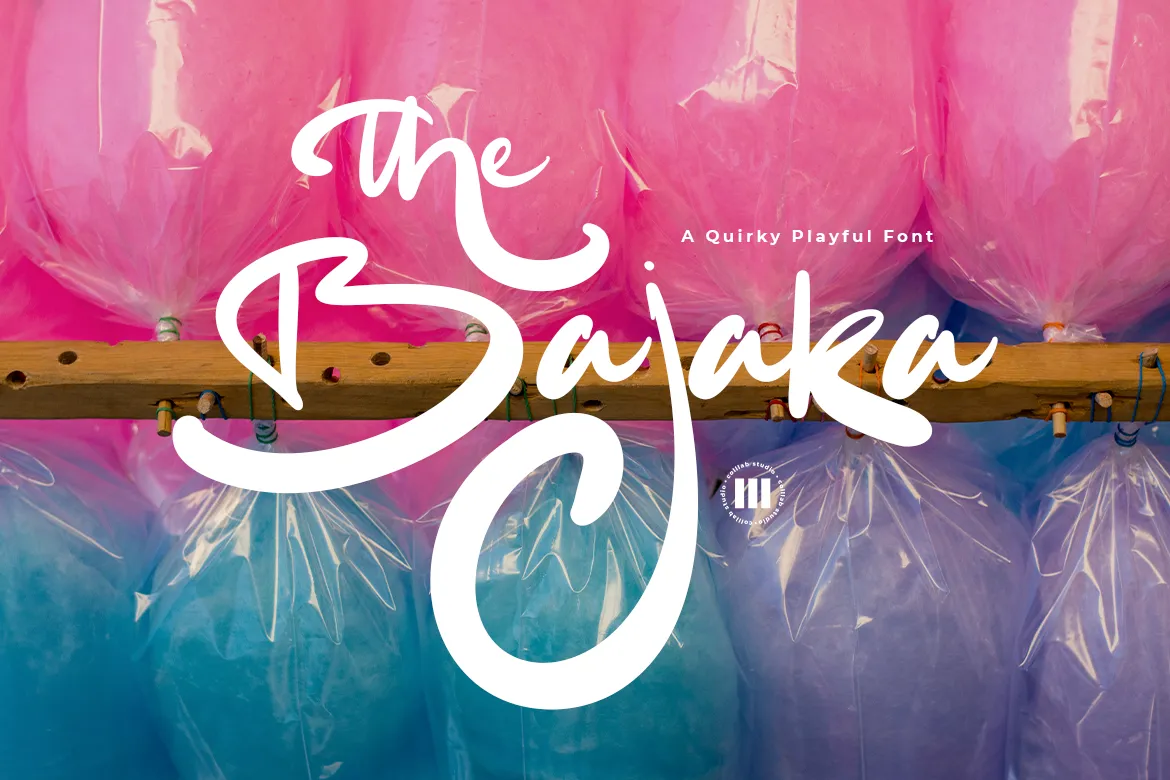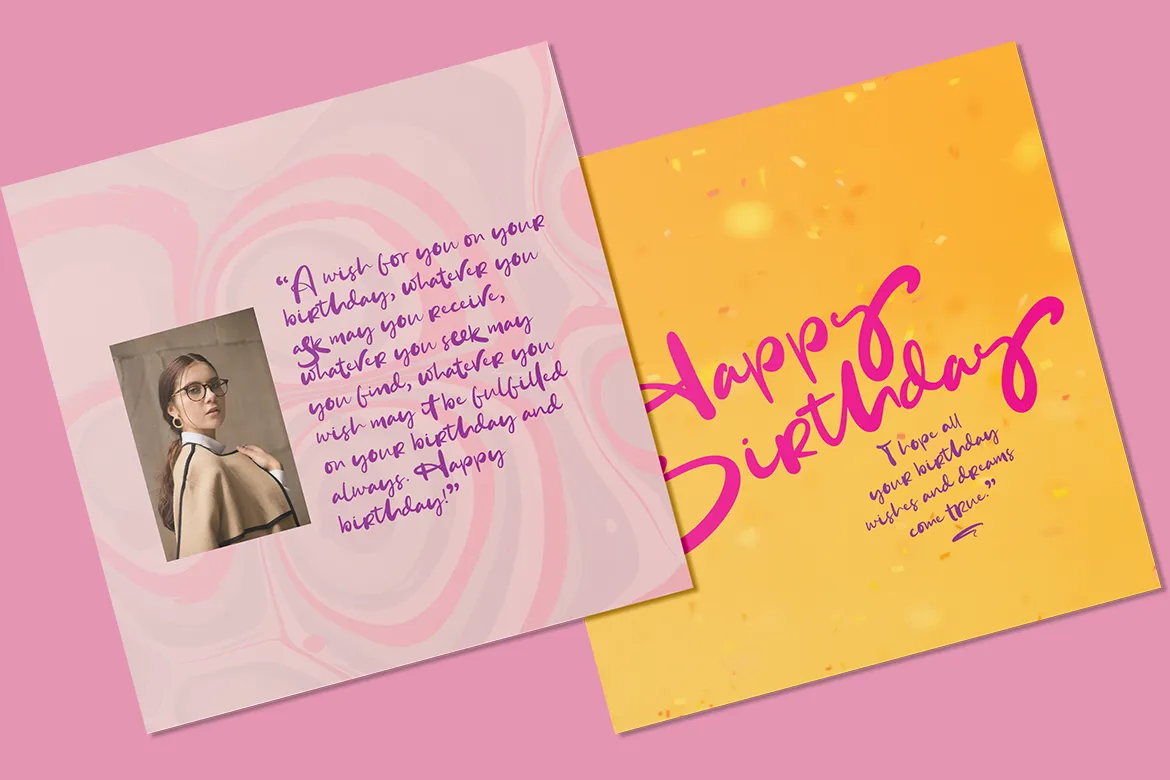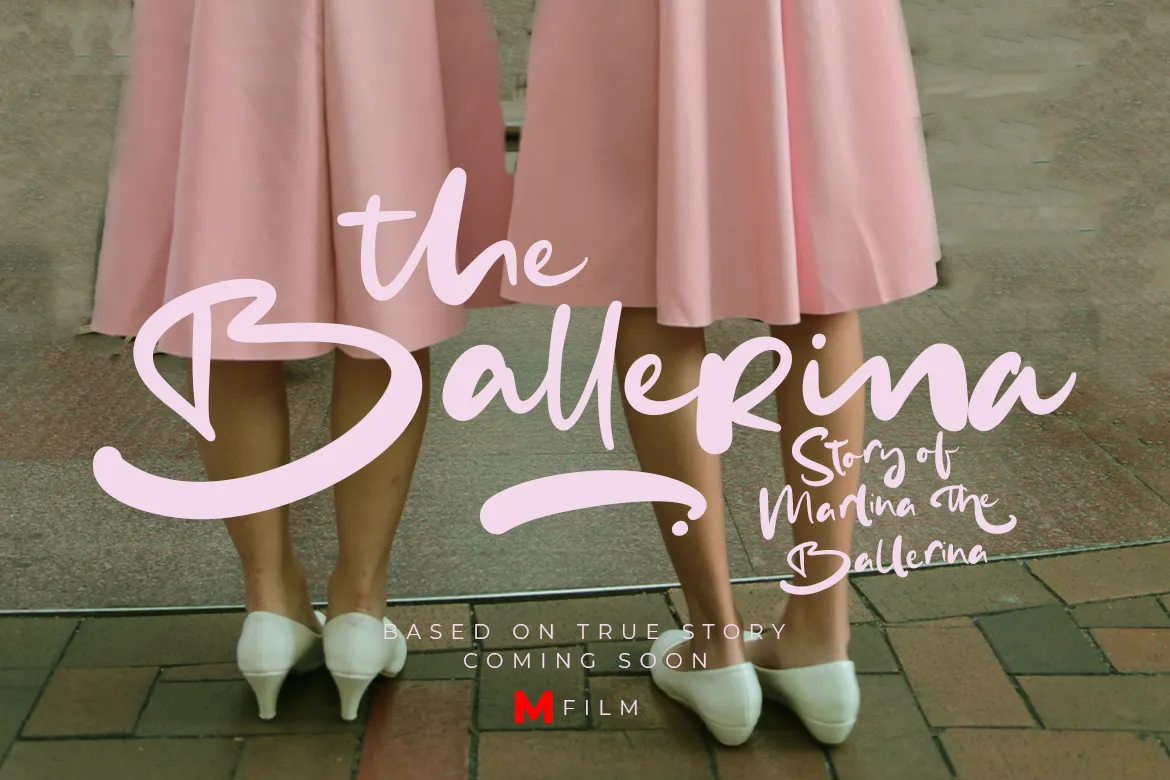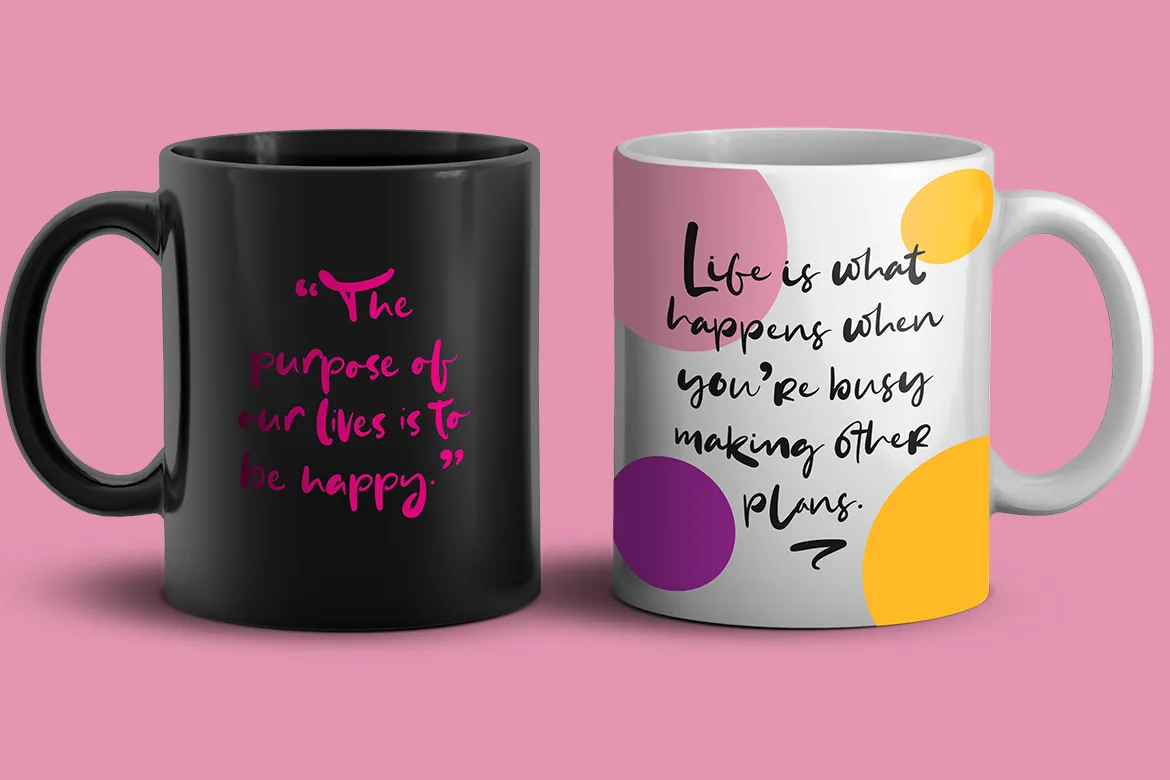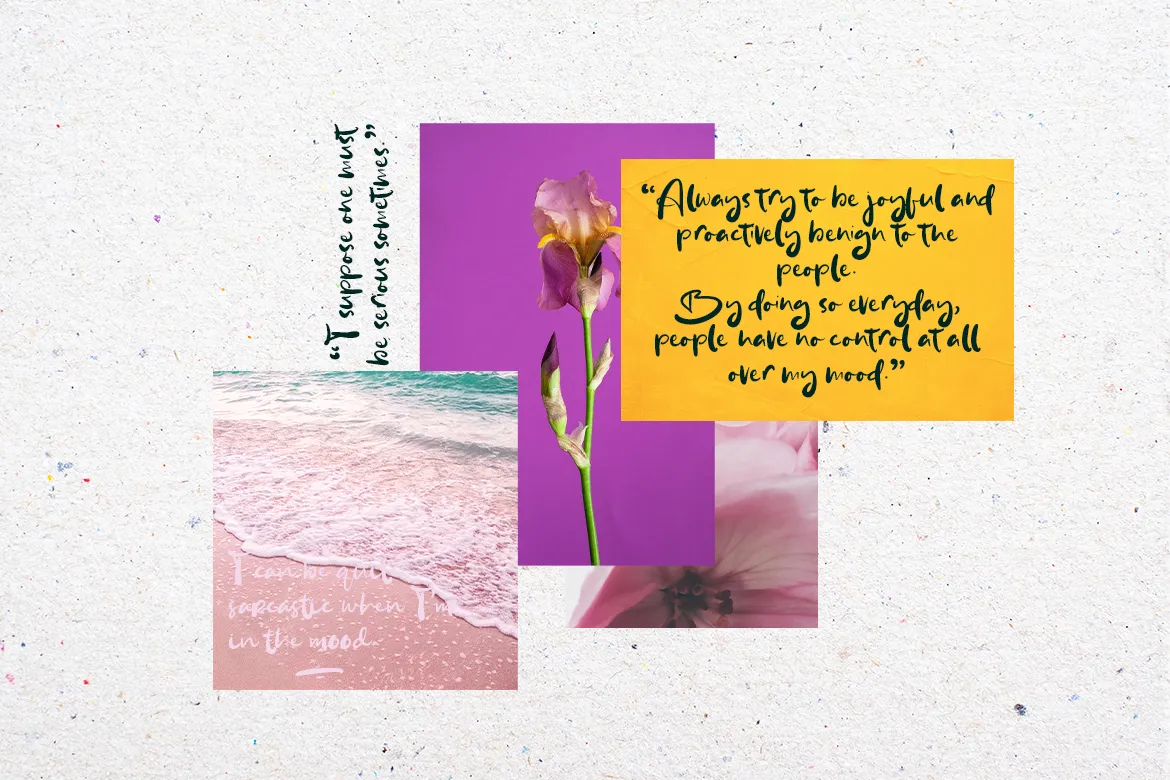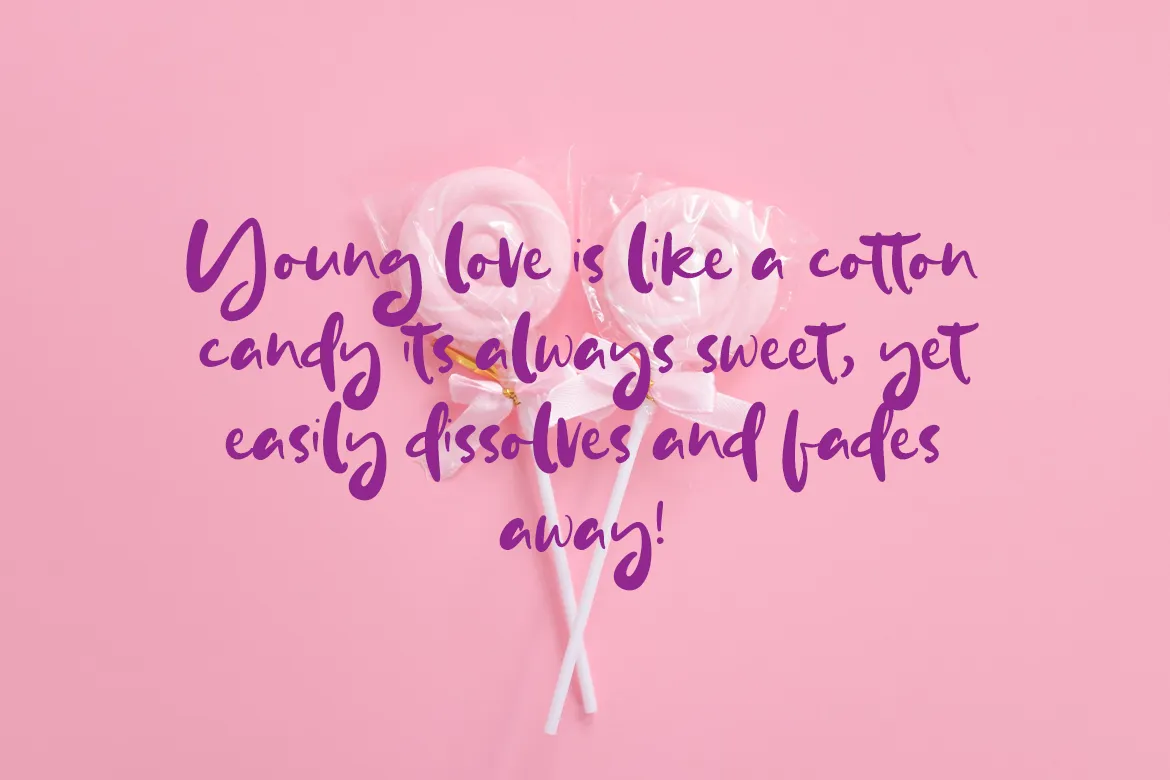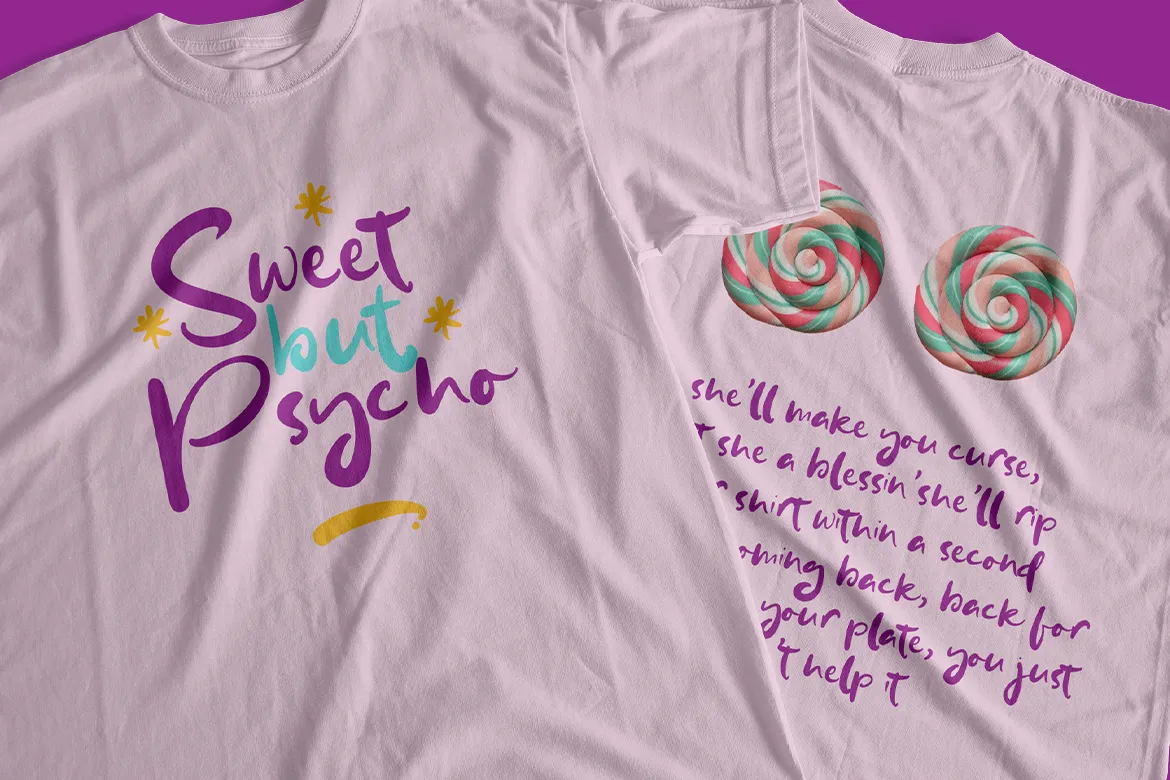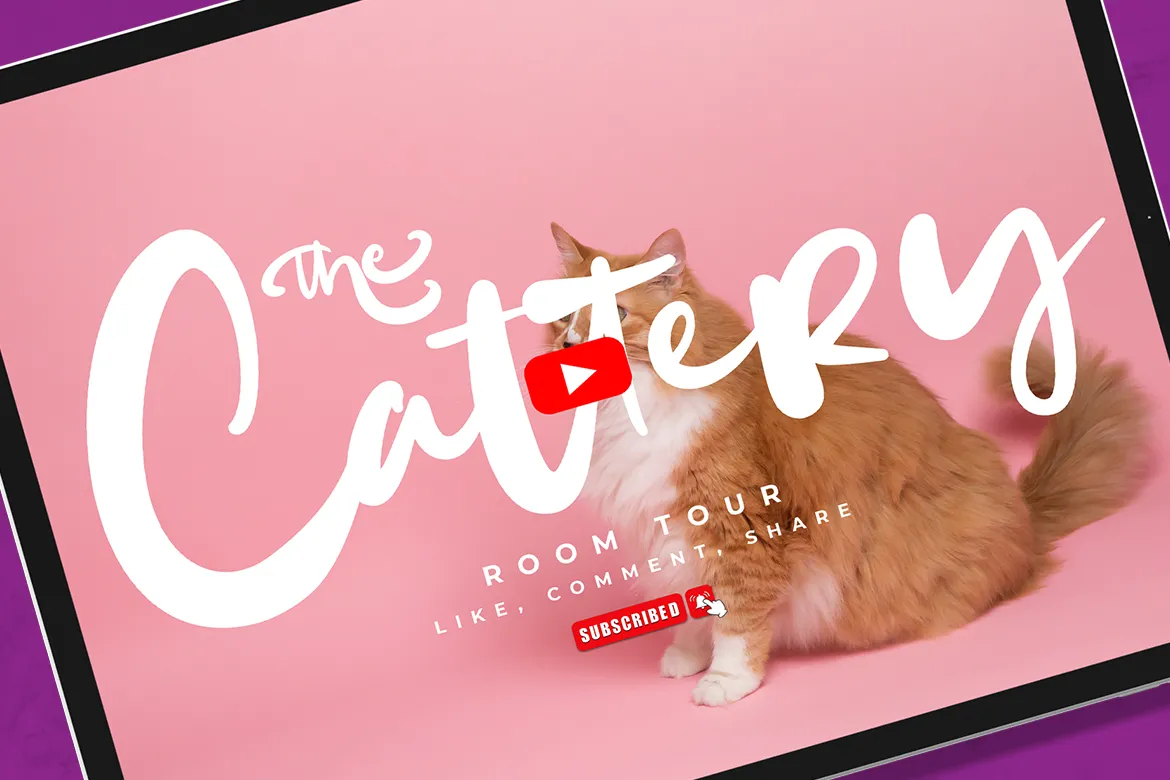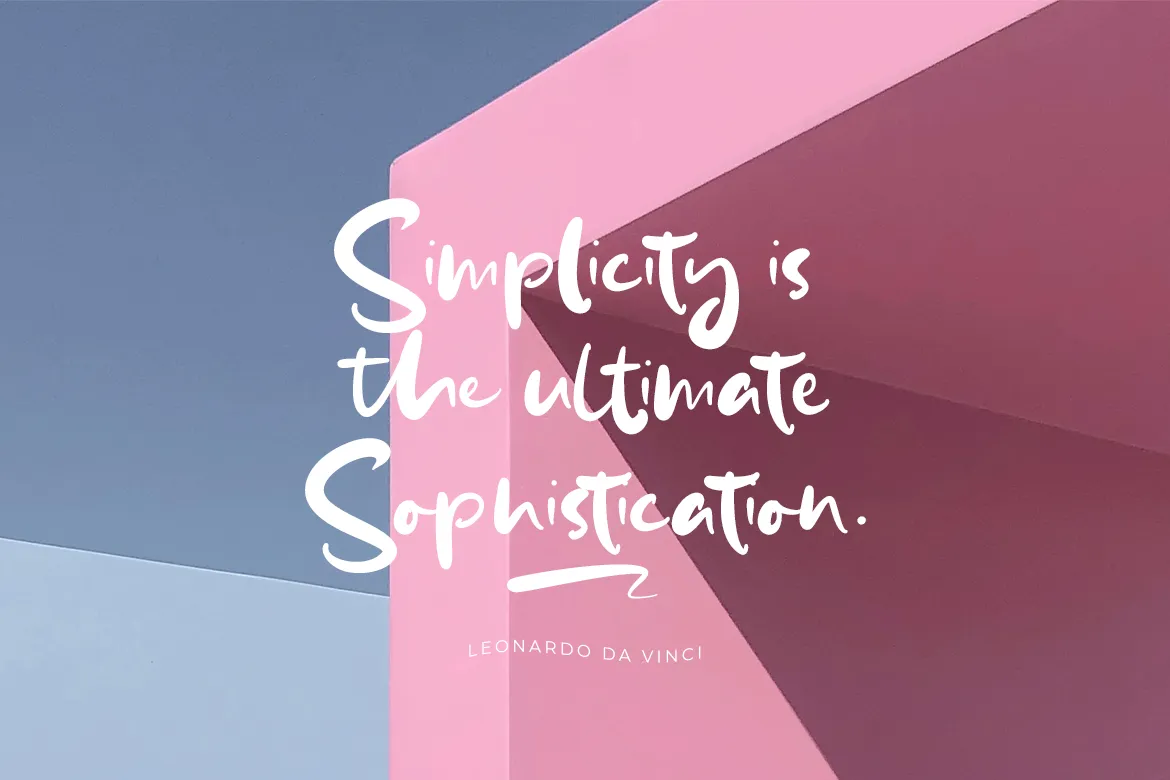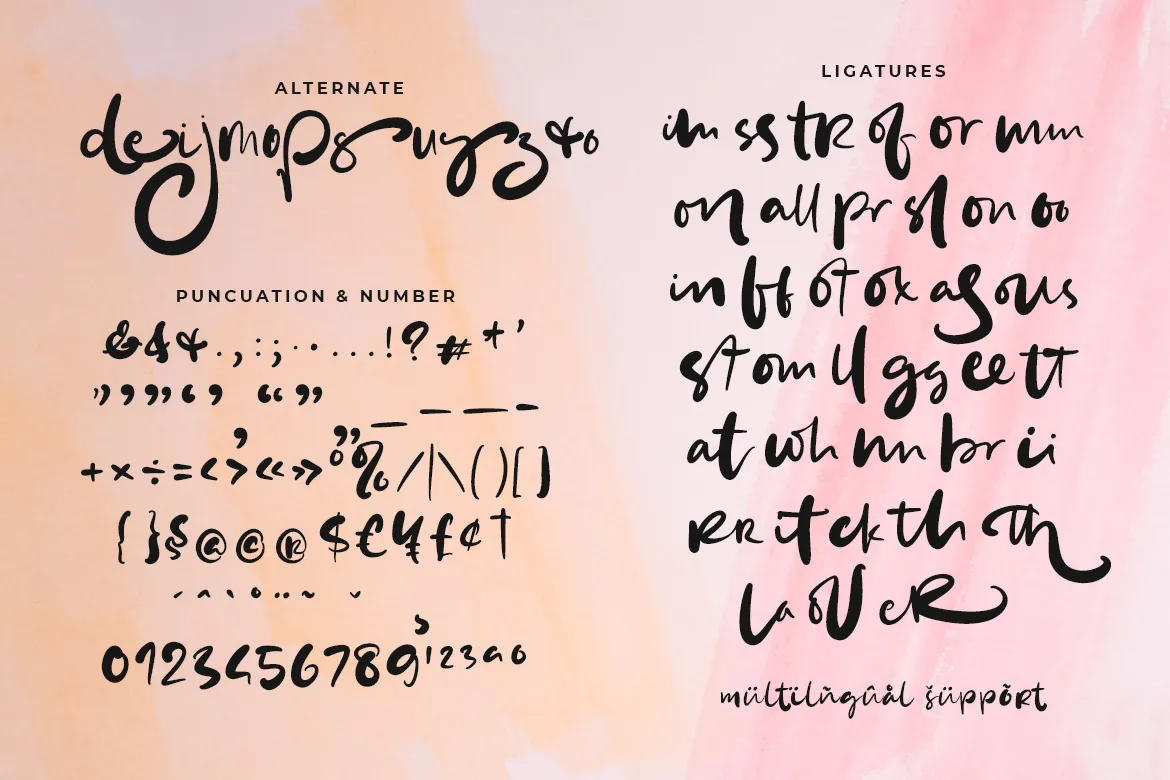
The Bajaka is a Quirky Playful Font with loads of dynamic energy and an amusing feeling. This beautiful font carries a strong character and gentle curves, making it the perfect choice for your logo or packaging designs.
The Bajaka delightful font can also be used to create different titles and logos, headers for your blog, captions for prints, greeting cards, letterheads, business cards, wedding invitation cards, and more.